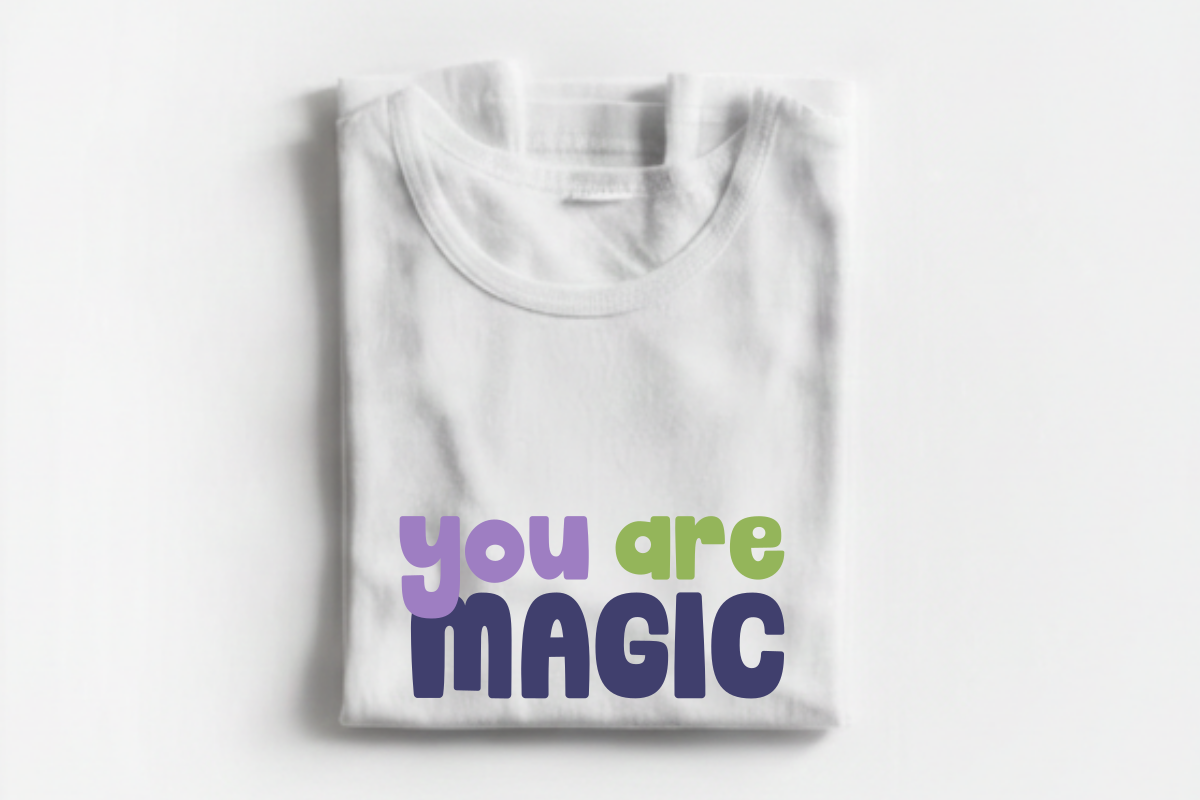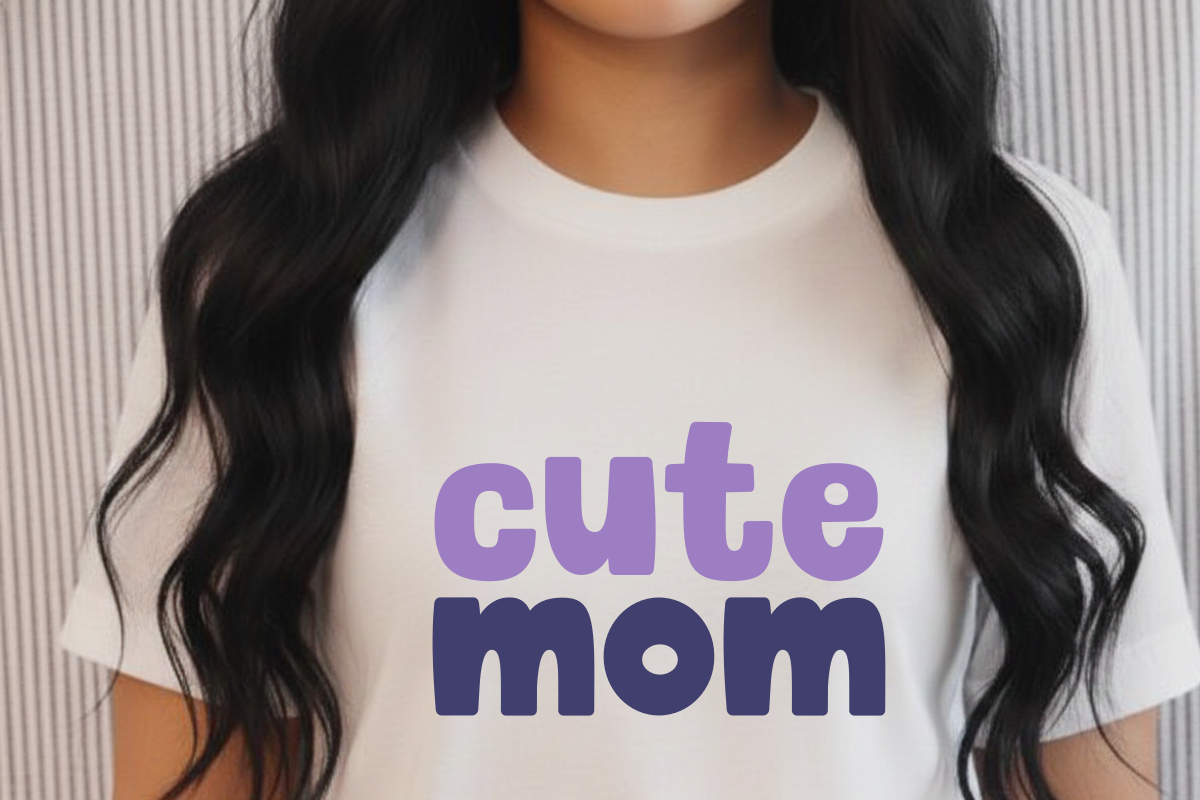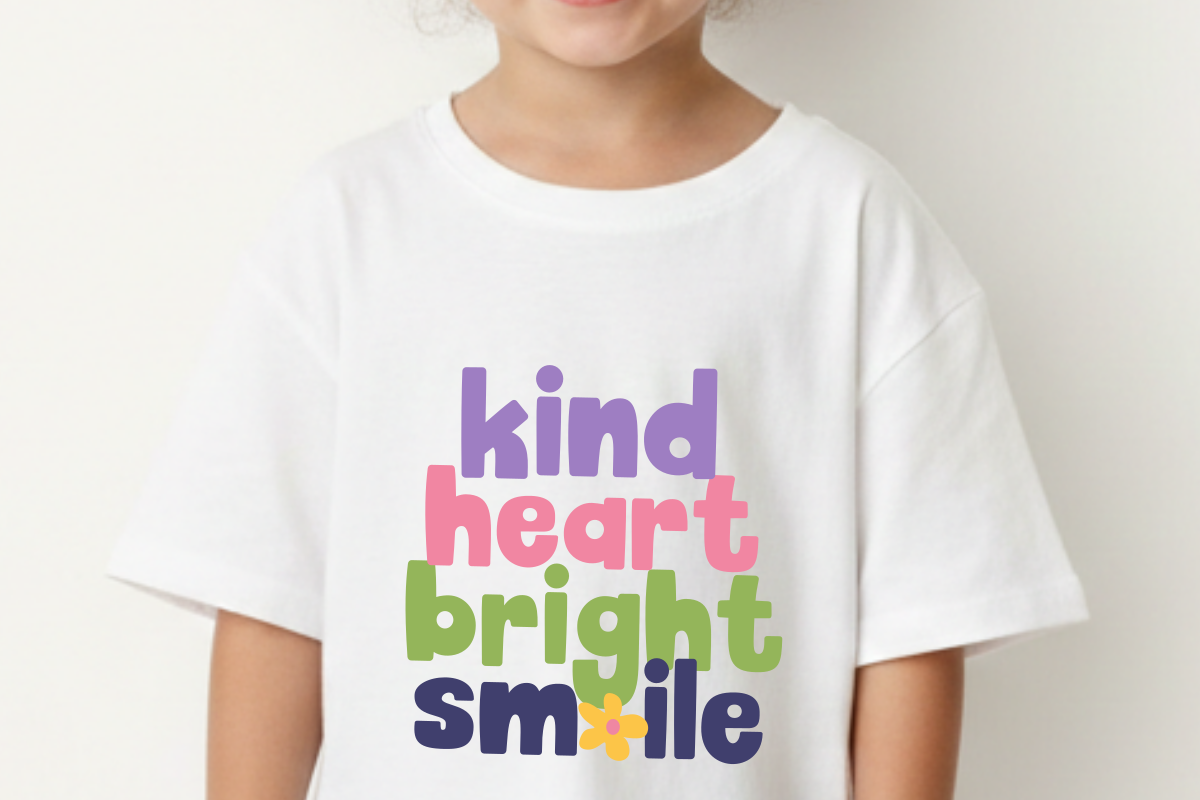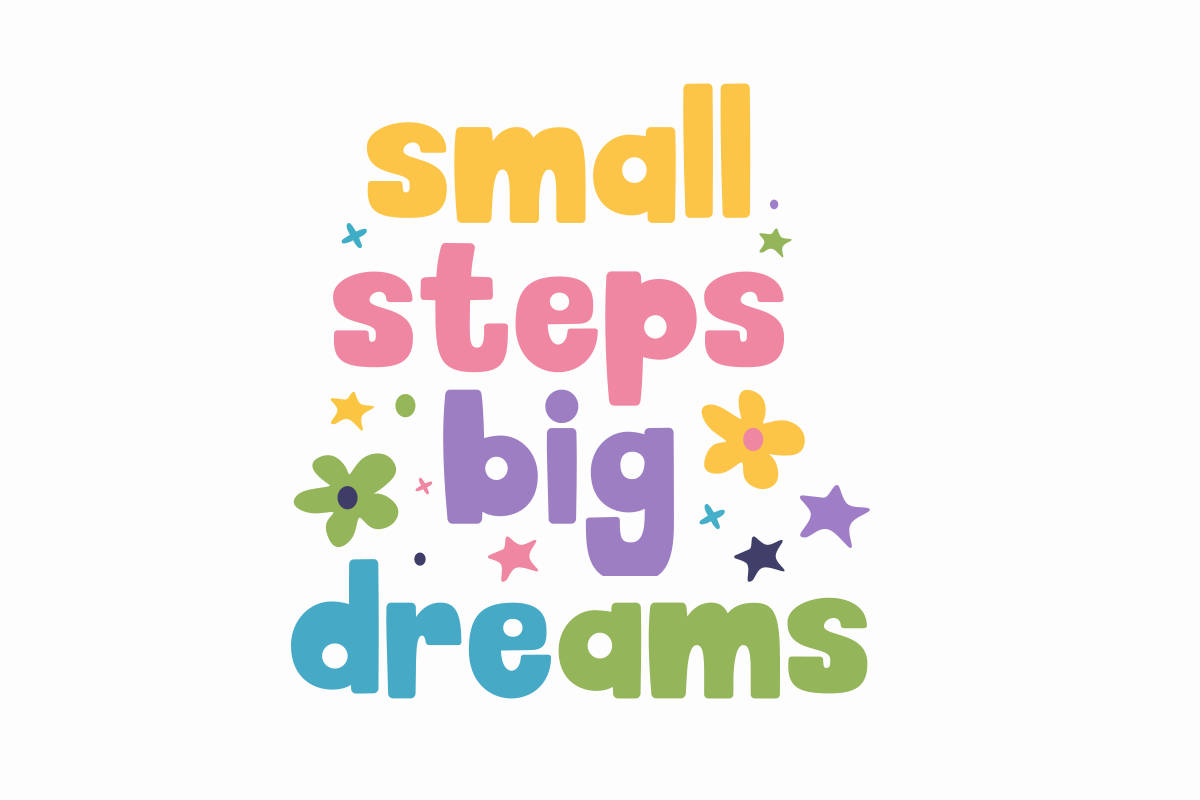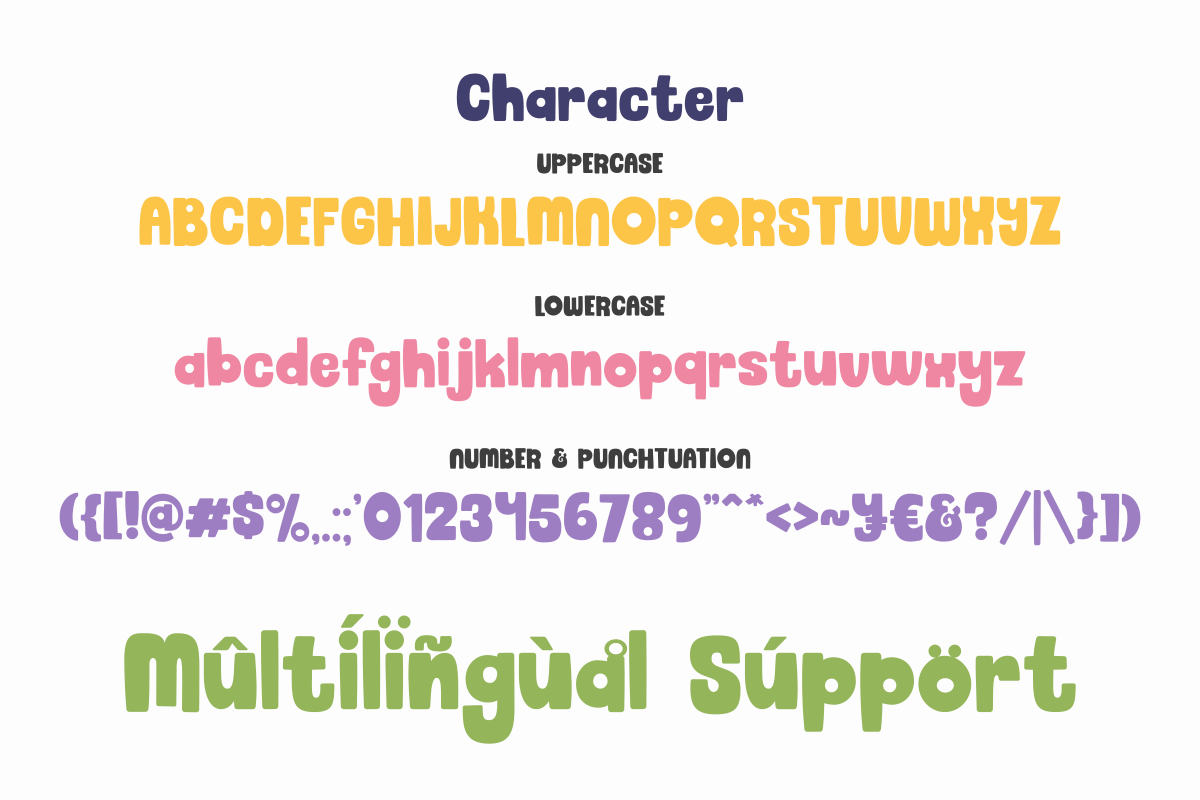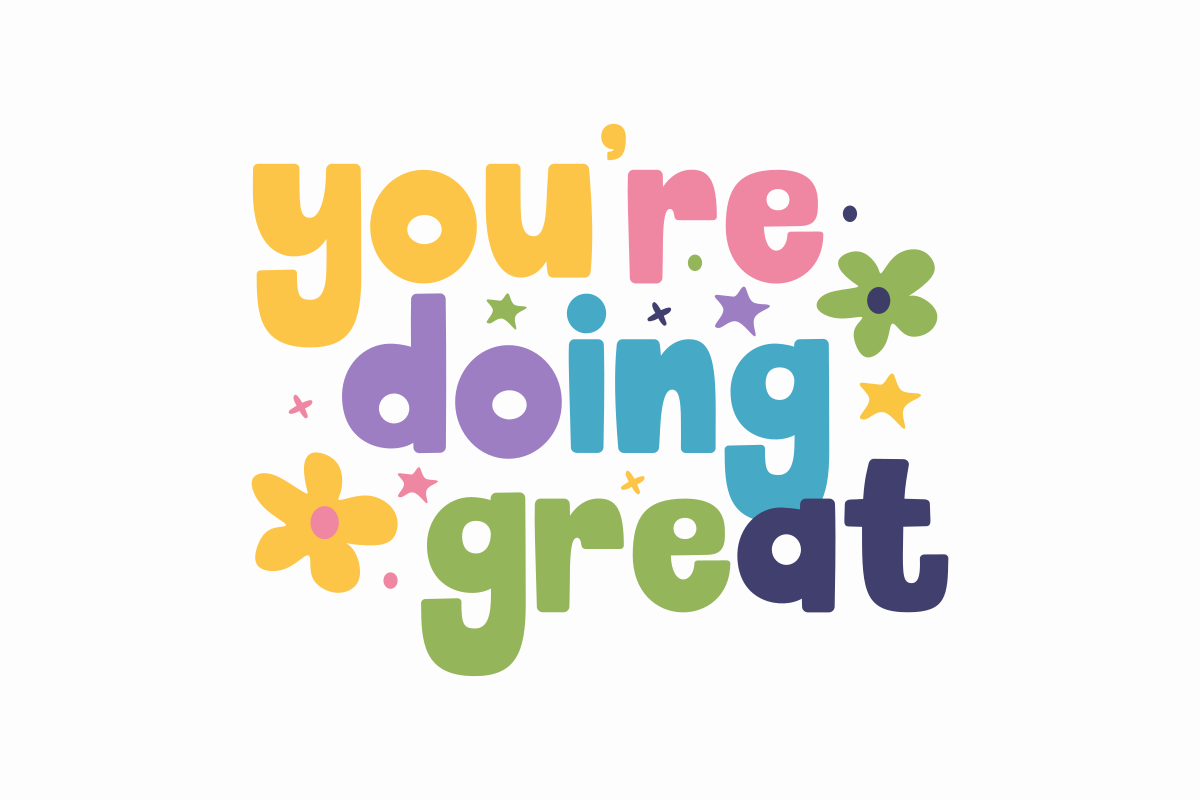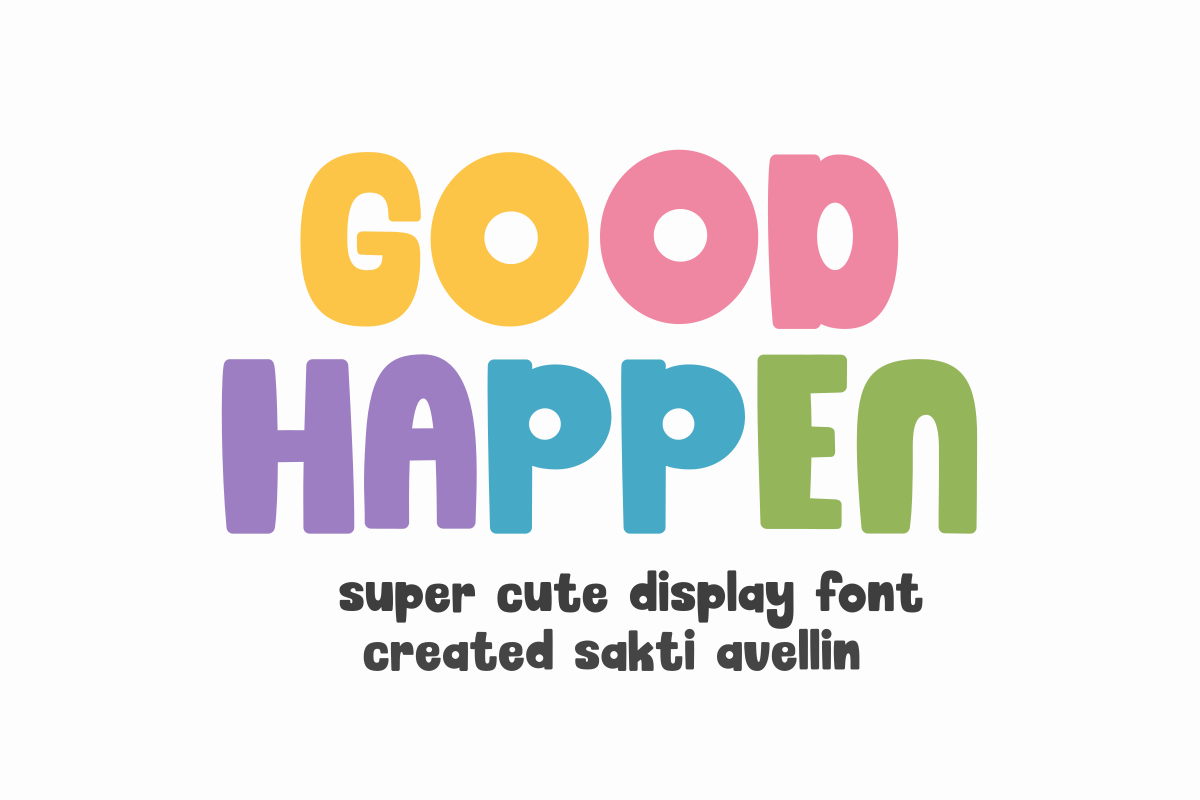
Good Happen - Cute Display Font
Good Happen is a super cute display font designed to bring a joyful and bubbly personality to your creative projects. This charming typeface features thick, rounded letterforms that capture a friendly and fun-loving spirit. Perfect for children's branding, colorful stickers, nursery decor, birthday invitations, and cheerful social media graphics. Its energetic and organic aesthetic ensures your designs feel warm, welcoming, and imaginative. Whether you are creating toy packaging, school projects, or whimsical posters, Good Happen adds a lovely and delightful touch to every design.